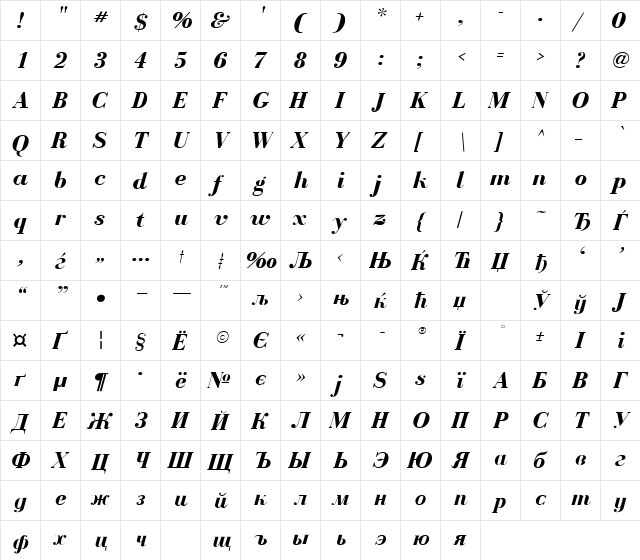
BodoniCyrillicFWF Bold Italic
Design Context for BodoniCyrillicFWF Typeface
BodoniCyrillicFWF is a composed and adaptable typeface that performs quietly and consistently across a wide range of design contexts. Its italic angle brings a sense of urgency and motion to the letterforms. Its bold stroke weight gives it real presence on the page.
Pro Tip: Use BodoniCyrillicFWF for emphasis, pull quotes, and subheadings where its slanted energy can add rhythm to the layout.